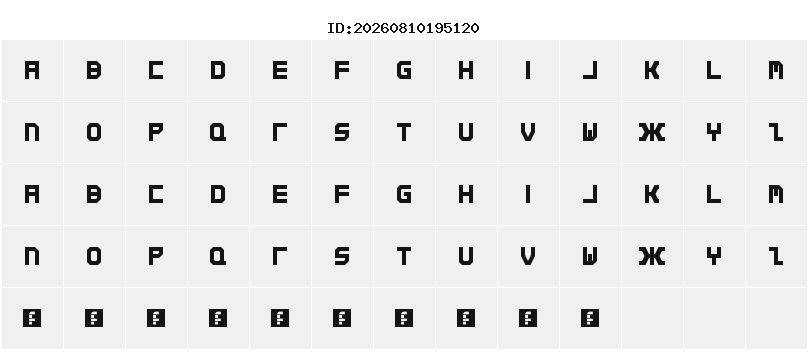
• Font Name: Qirex
• Designer: floor-3013
About Qirex.ttf
Qirex.ttf is a modern, elegant sans-serif font designed for ultimate readability and visual harmony. Perfect for branding, headlines, web design, and print materials.